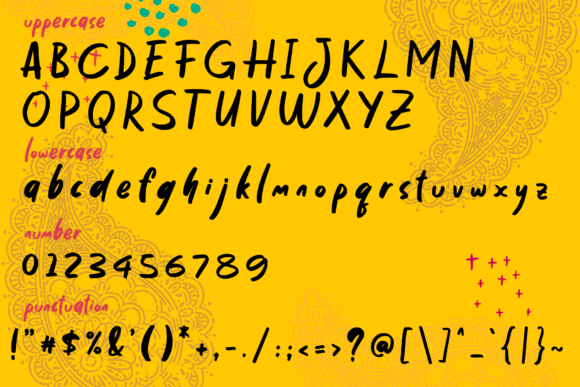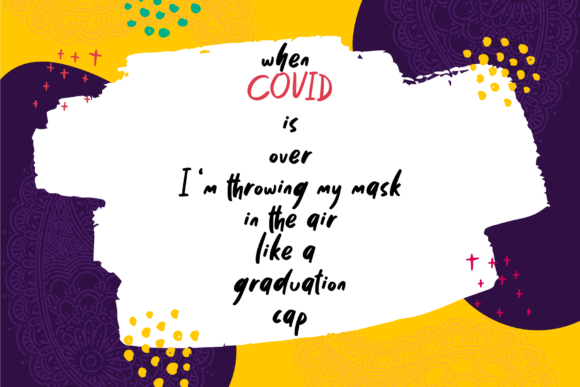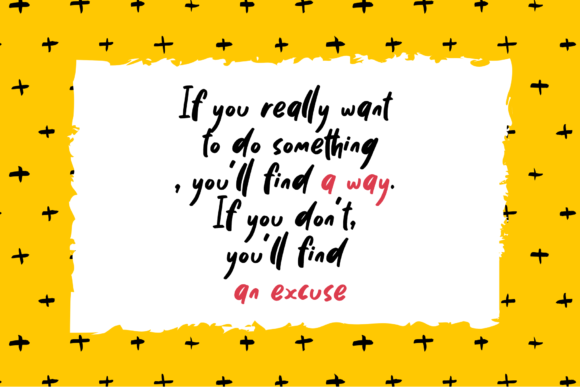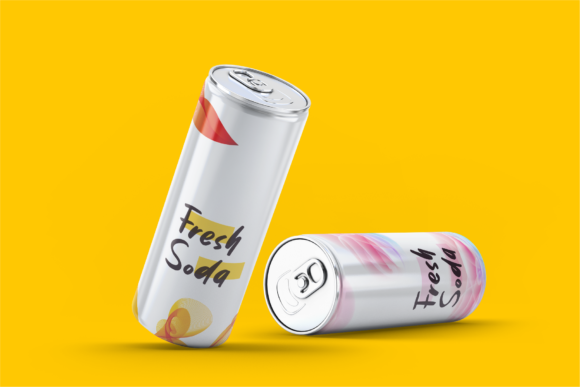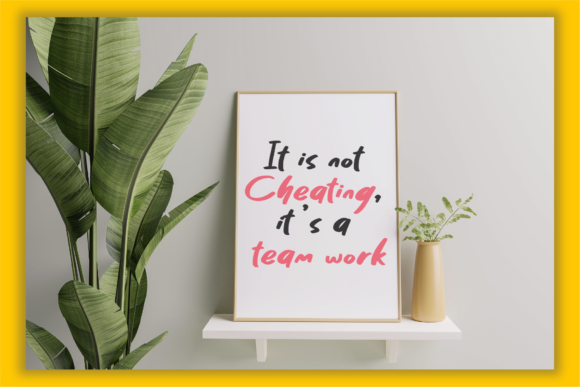
Introduction to Lost Star Font
Lost Star is a bit quirky display font that is readable, friendly, and fun.
You can use it for quotes, titles, brand names, book covers, posters, or just any creation that requires a touch of beauty .